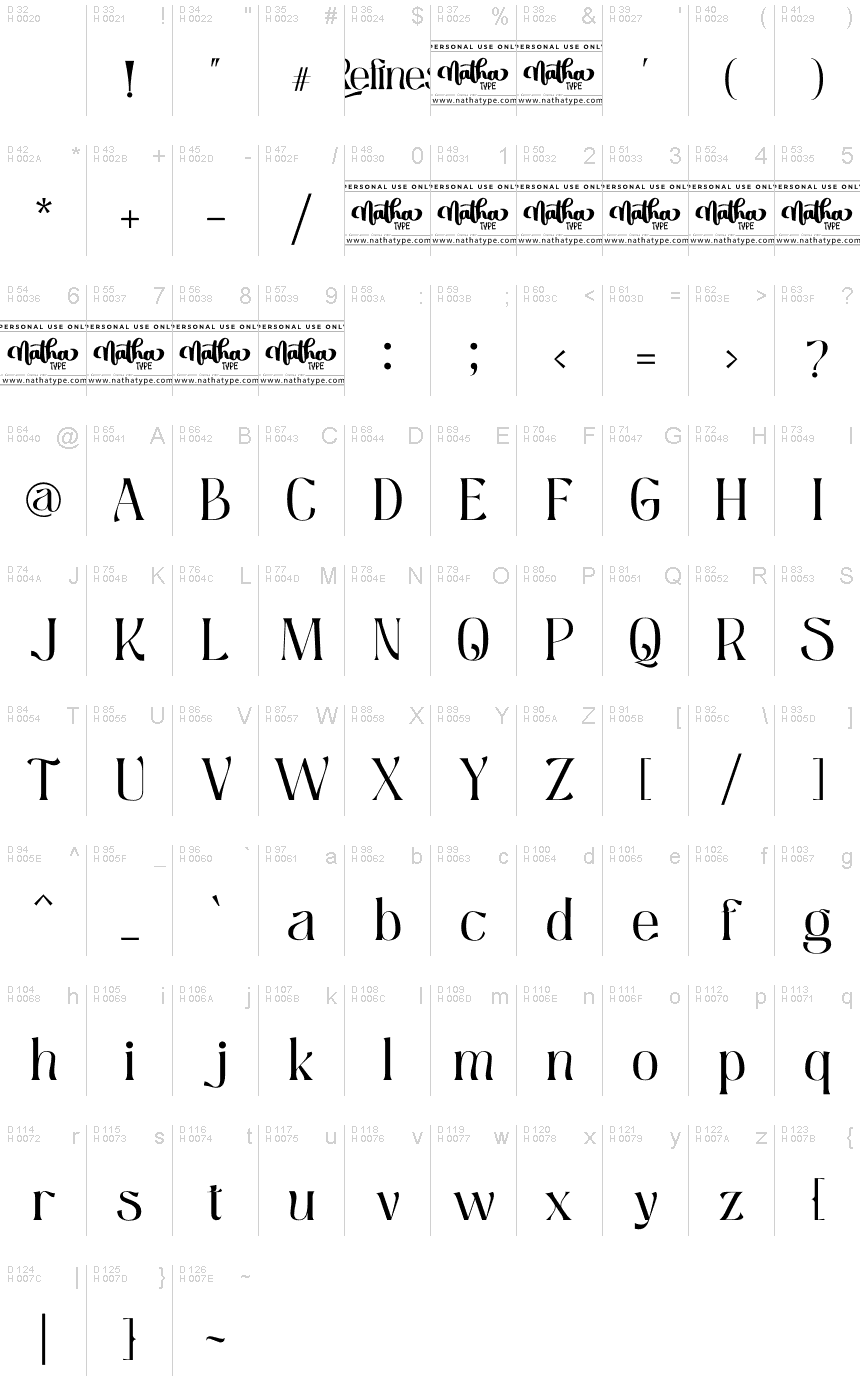
Refinest Personal Ue
Refinest, crafted by renowned designer Din Studio, is an exquisite serif font exuding elegance and vintage charm. With its refined strokes and timeless appeal, this font adds a touch of sophistication to any project.
Perfect for wedding invitations, luxury branding, or editorial designs seeking a touch of nostalgia. Embrace Refinest's graceful curves and ornate details to create captivating logos, elegant packaging, or stunning book covers that transport your audience to an era of refined taste.
Let Refinest elevate your creative vision and immerse your projects in the allure of classic sophistication.